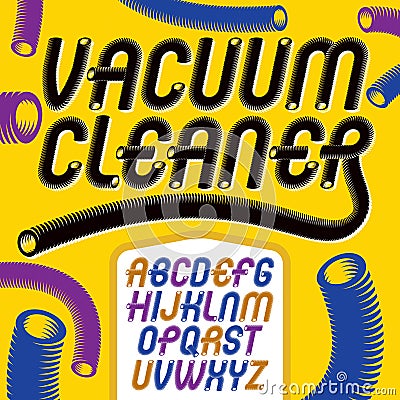
Set of cool vector upper case rounded alphabet letters, abc isolated. Trendy italic type font, script from a to z can be used in poster creation. Made using vacuum cleaner pipeline design